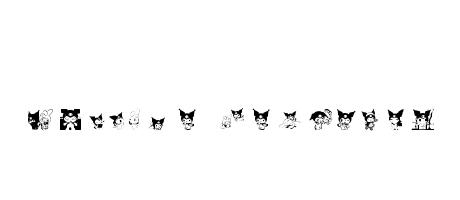
Kuromi Dingbats
Kuromi dingbats is a playful font featuring a collection of adorable, mischievous black cat faces. Each character is a unique expression, from happy to grumpy, creating a dynamic and expressive set of glyphs perfect for adding a touch of kawaii darkness to any design. The simple yet detailed style is easily recognizable and charming.